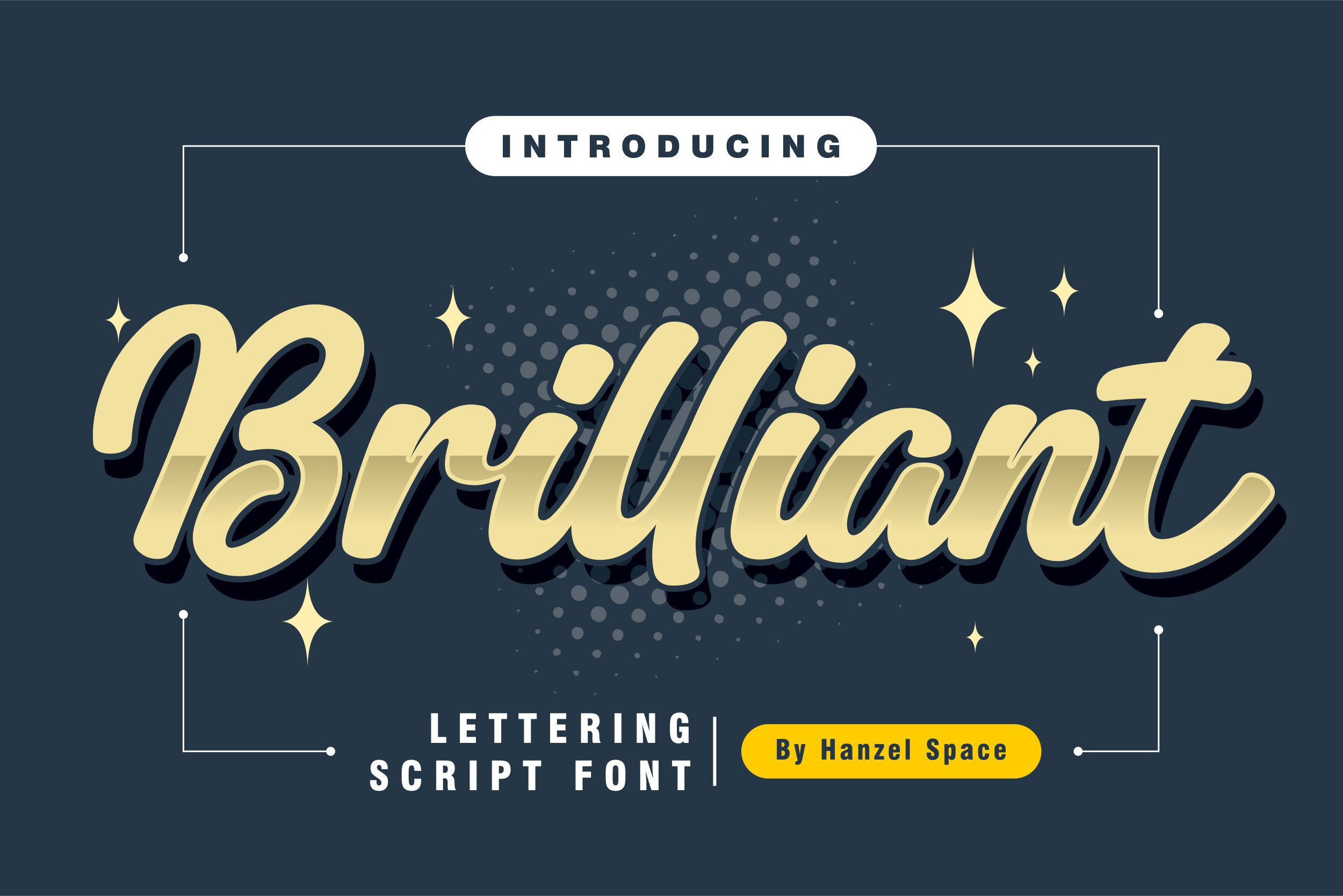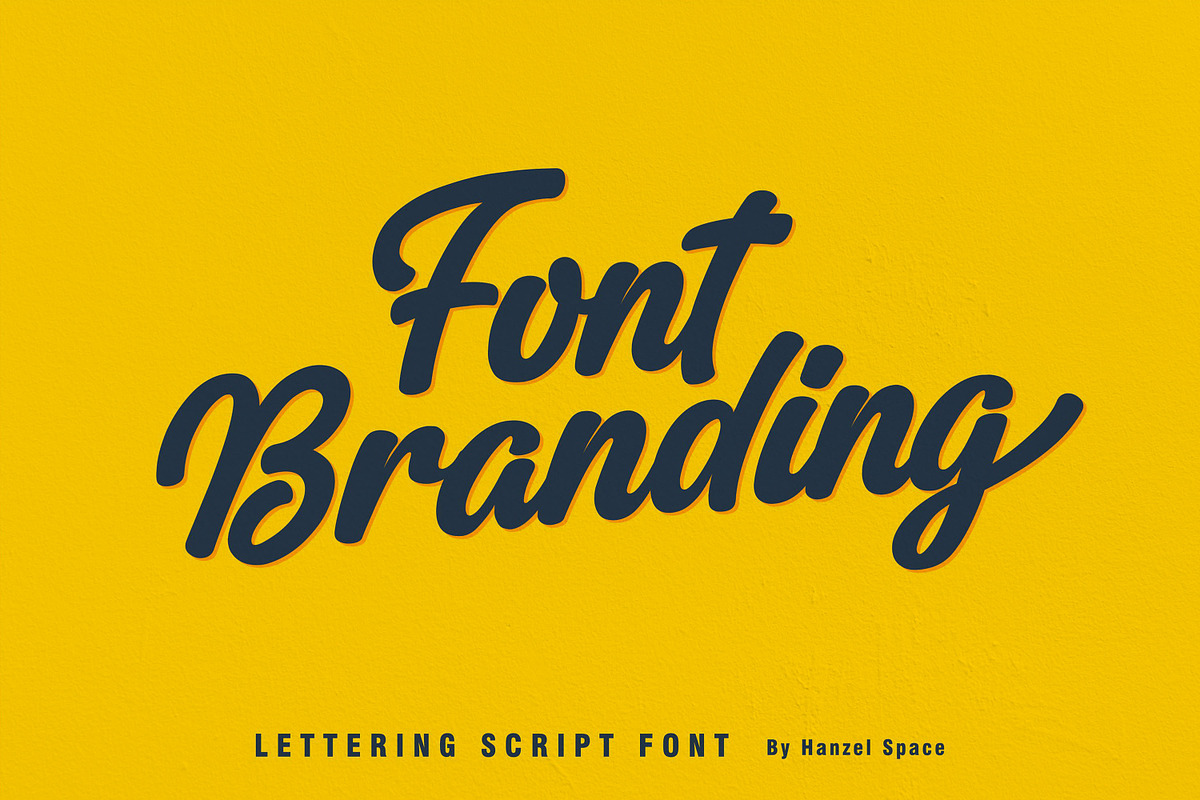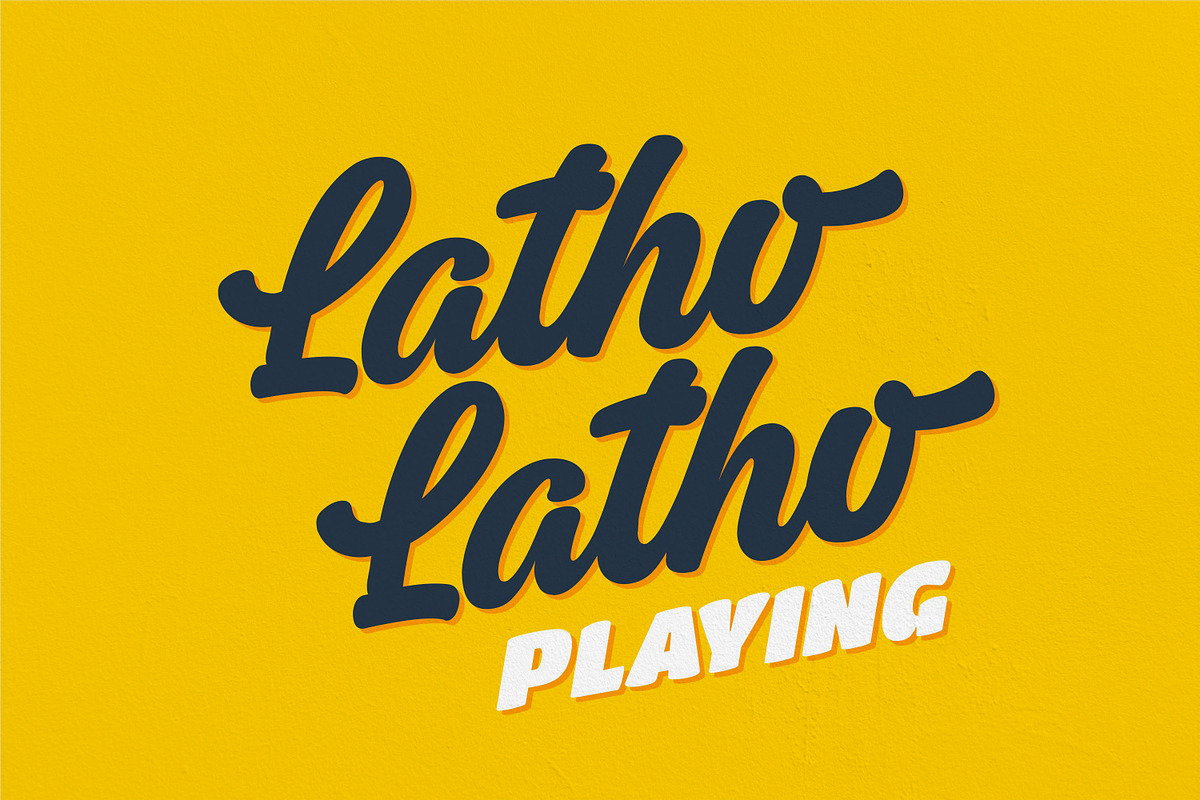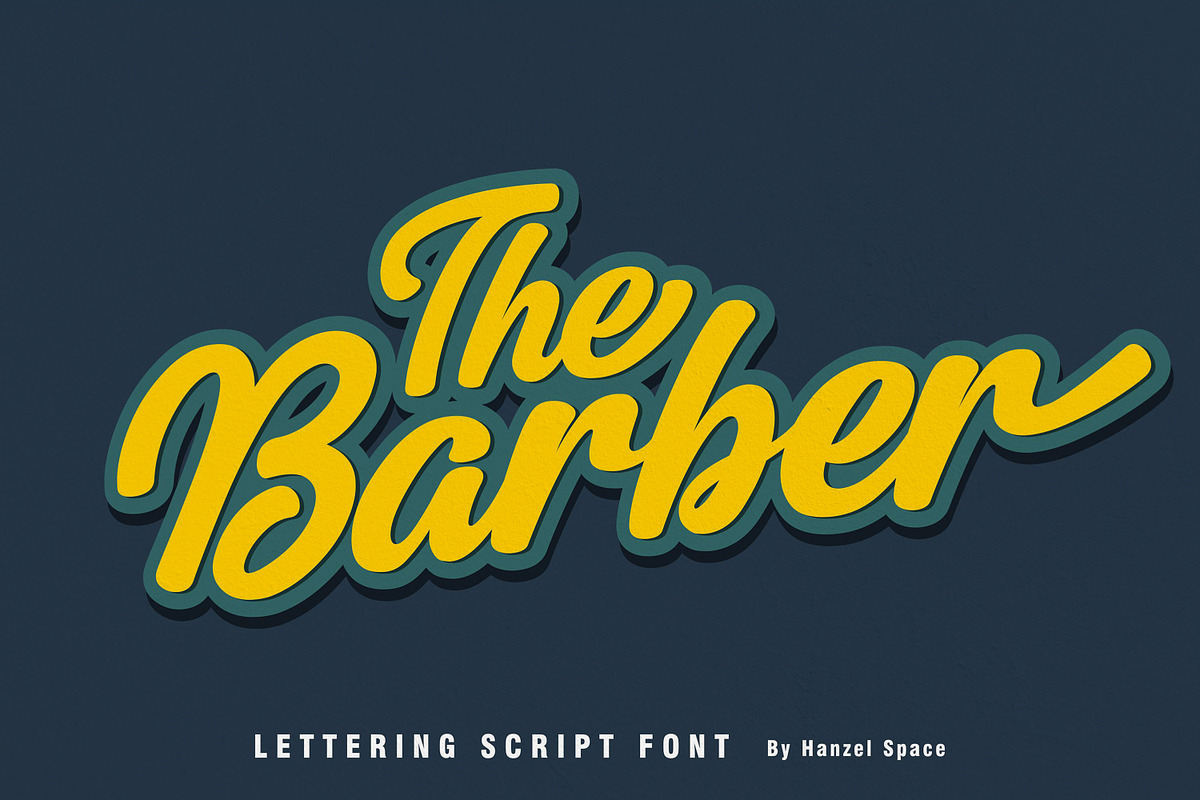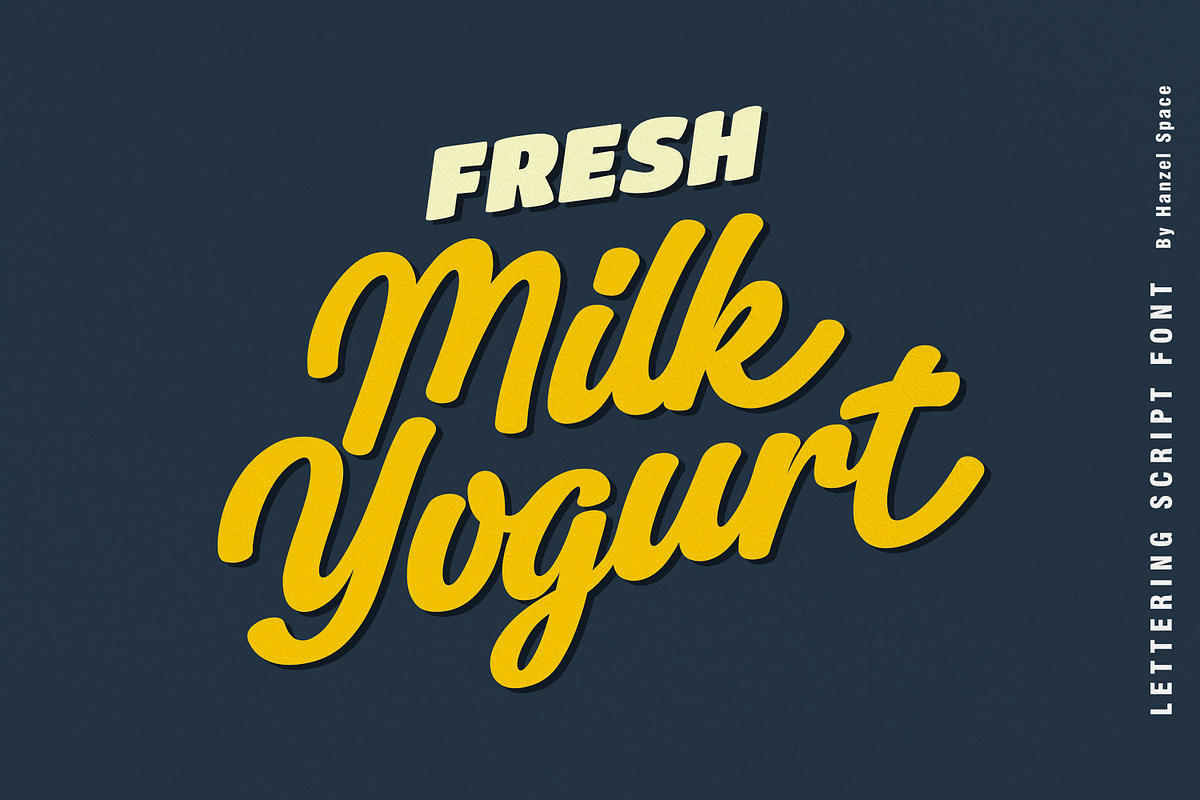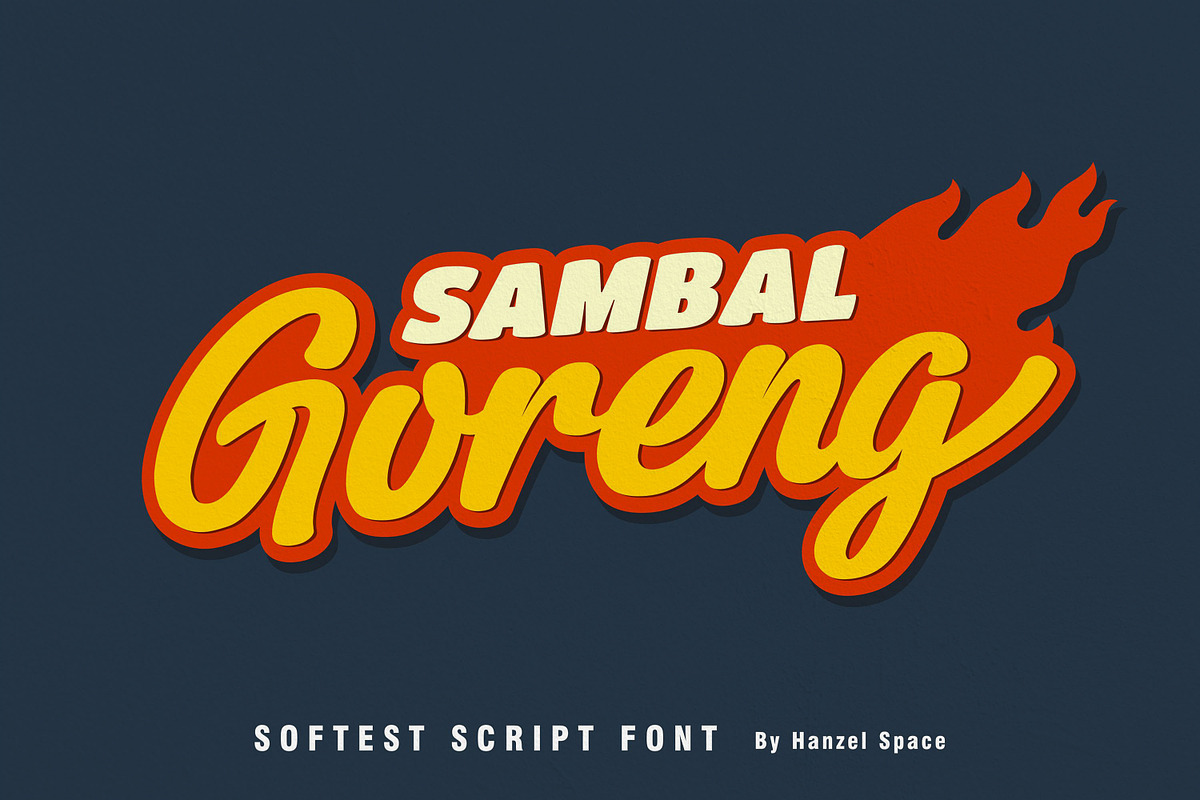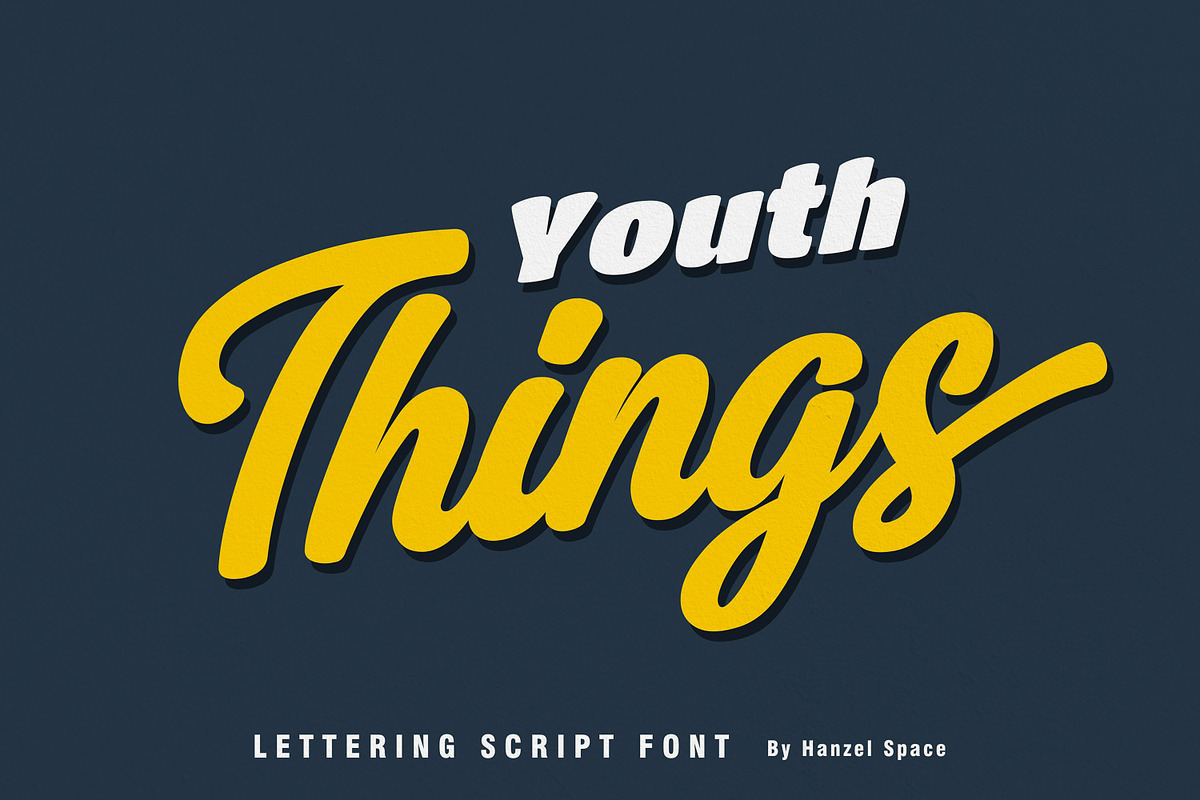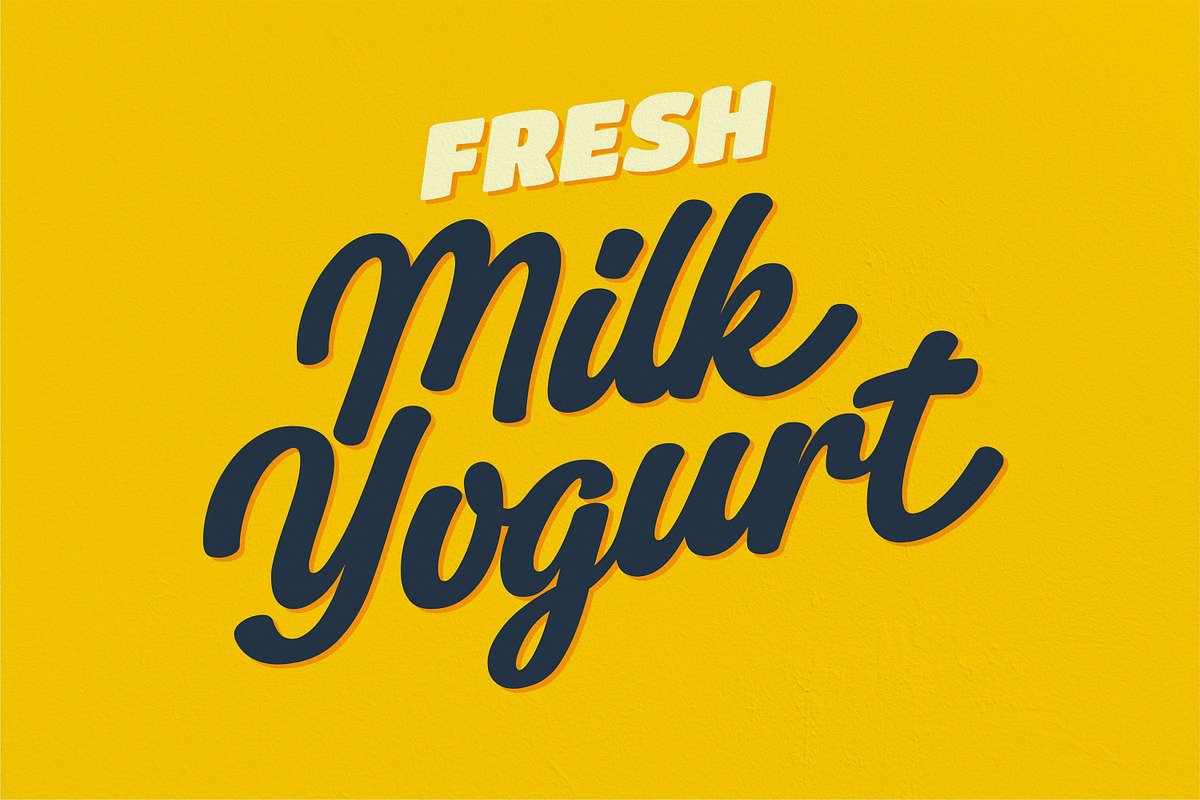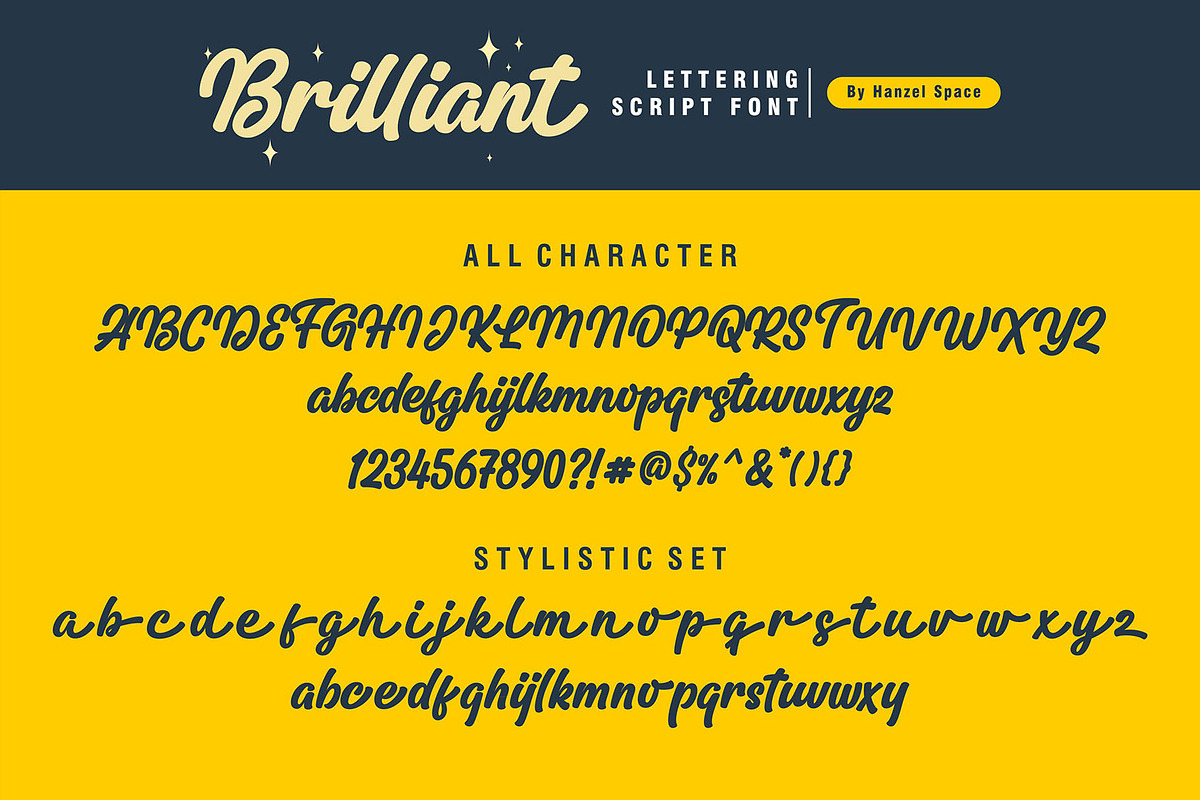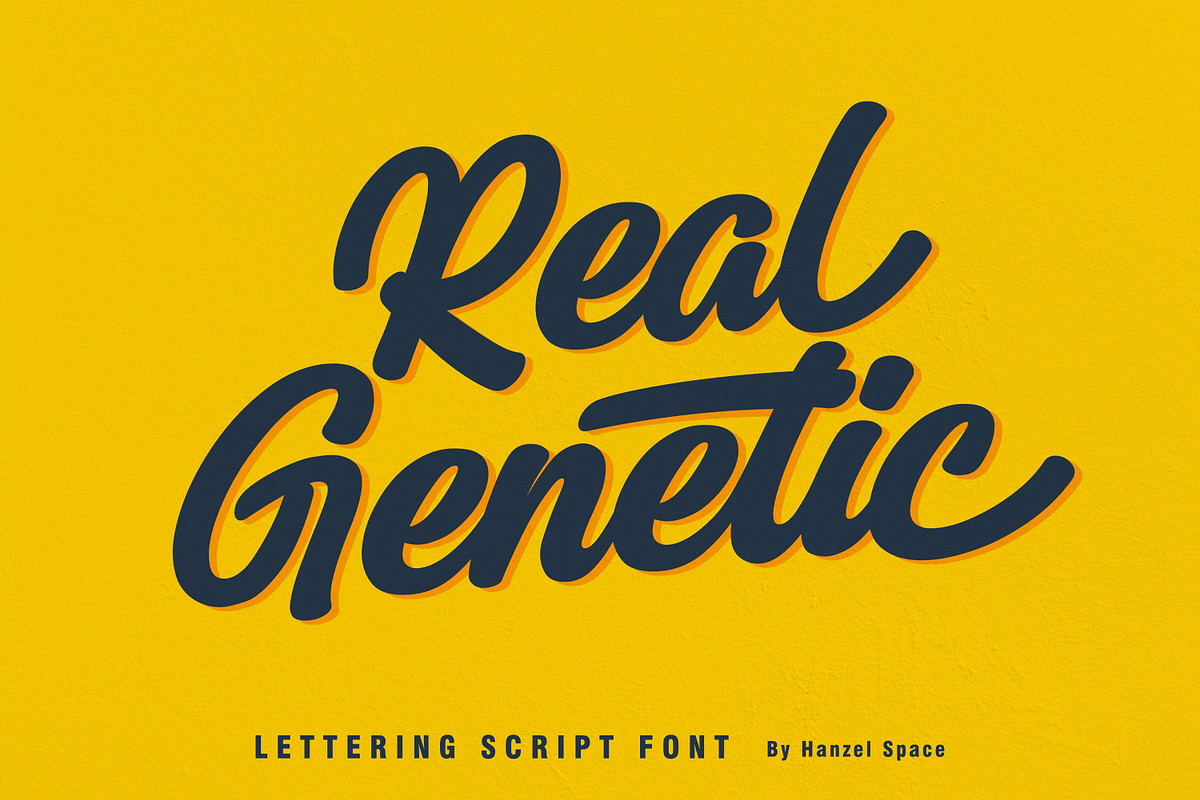
Brilliant | Lettering Script Font
Brilliant - Lettering Script Font
We’re Introducing the “Brilliant” Font we created in 2023. To talk more about the character of this font, please see a preview of how each Glyph in the font will look when applied to a design. This font has a vintage touch and a modern look to each letter, slightly rounded and neat shapes in each curve, plus a Stylistic feature at the end of the letters.
We design this font in such a way that it is suitable when used for design projects so that it looks very attractive. And you can also use this font for logos, branding, brochures, names on product packaging and so on.